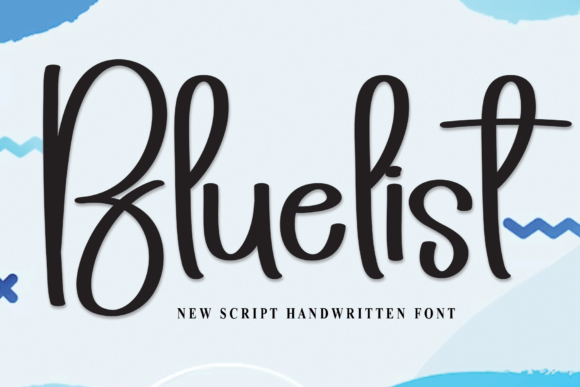
Introduction to Bluelist Font
Bluelist is a sweet and friendly handwritten font.
Fresh and neat, this font is ideal for writing wedding invitations, cards, or any other design that might need a fun touch .